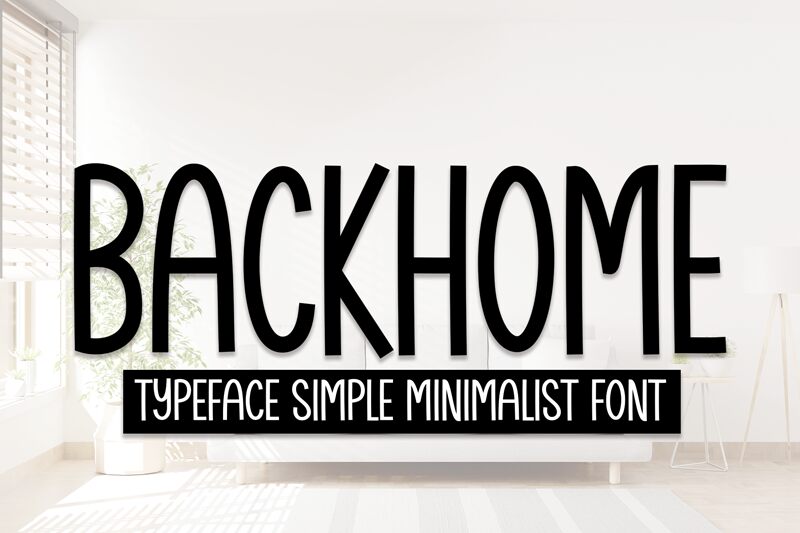
Backhome
Backhome, designed by Scratchones, is a captivating display font that combines the playful charm of comic style with the simplicity of minimalism. Its semi-light weight adds a touch of delicacy to your designs.
The condensed width enhances readability and saves space, making it ideal for eye-catching headlines and titles in various projects. From children's books to website banners, Backhome brings a sense of whimsy and modernity that will surely captivate your audience.